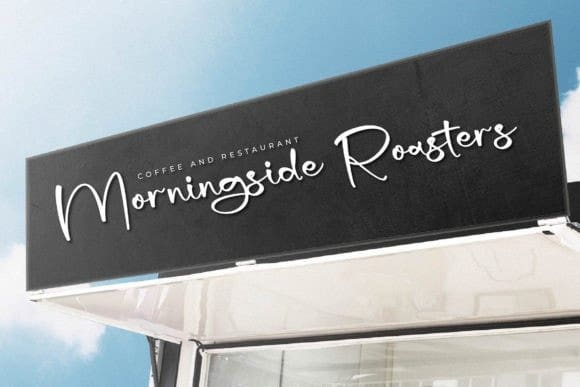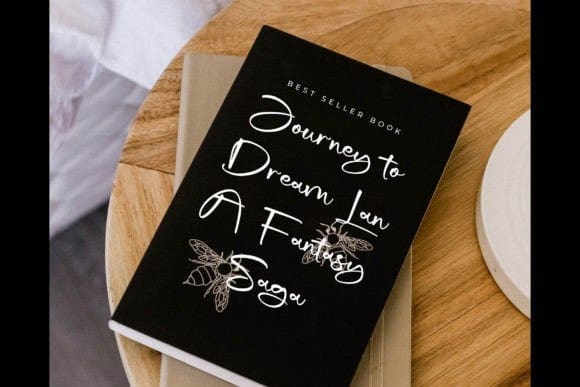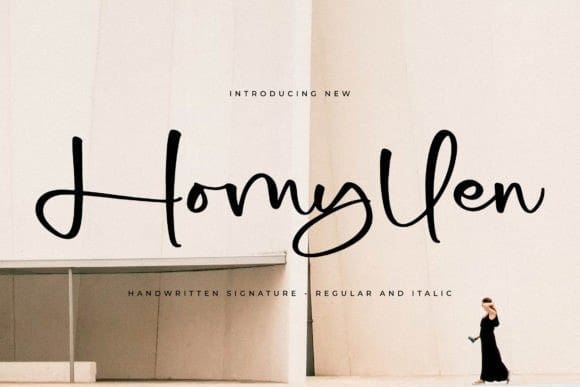
Homyllen Script Font
Homyllen Script Font is a handwritten signatire font, suitable for a variety of projects such as logos, branding projects, homeware designs, product packaging, mugs, quotes, posters, shopping bags, t-shirts, book covers, name cards, invitation cards, greeting cards, labels, photography, watermark, special events, and all your other lovely projects that need a beautiful script taste.